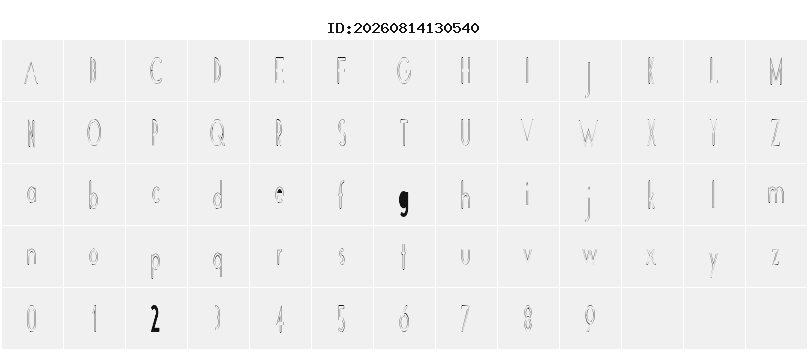
StretchHollowLight Preview
• Font Name: StretchHollowLight
• Full Font Name: StretchHollowLight
About StretchHollowLight.ttf
StretchHollowLight.ttf is a modern, elegant sans-serif font designed for ultimate readability and visual harmony. Perfect for branding, headlines, web design, and print materials.